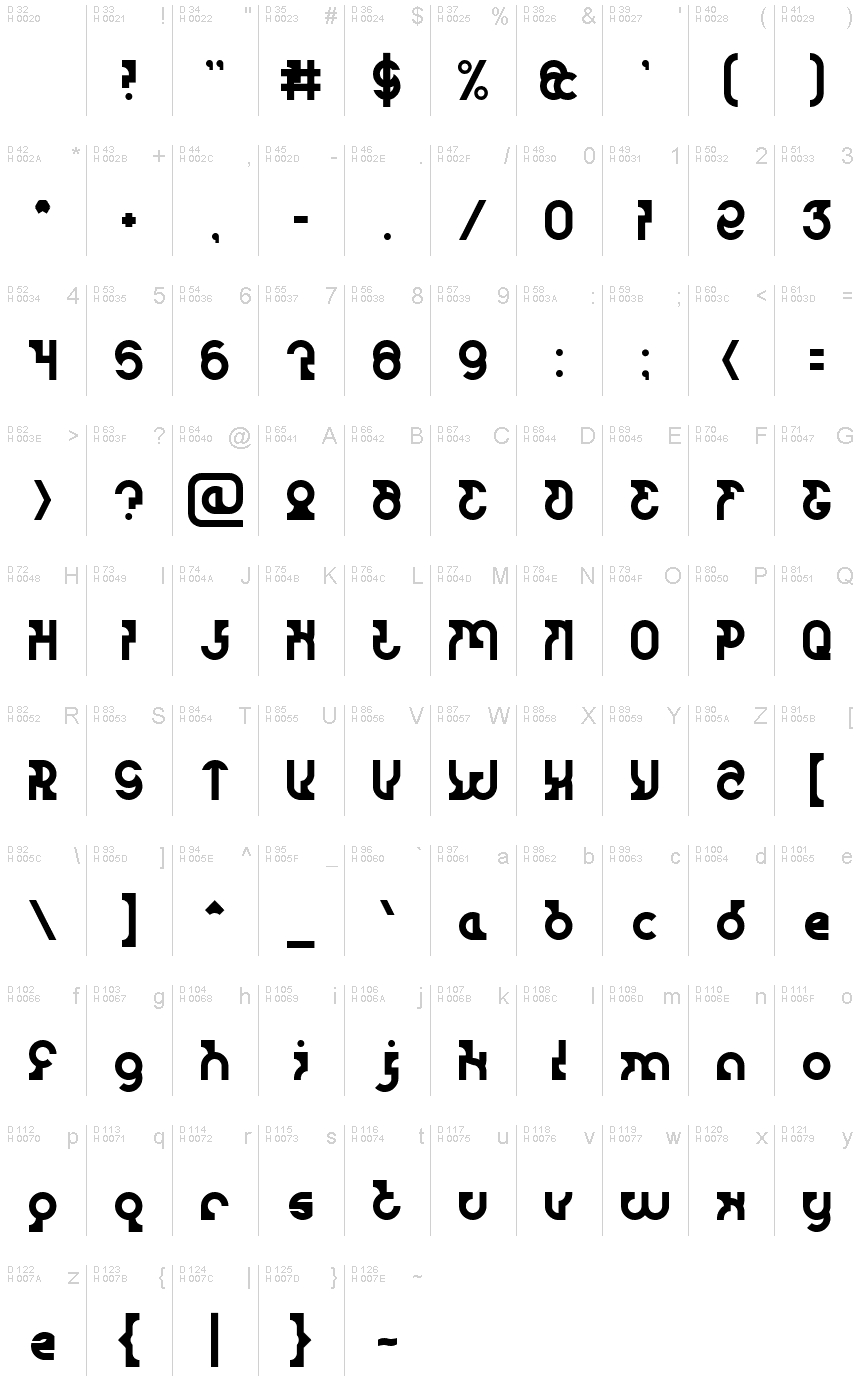
PASSWORD
The PASSWORD font, designed by Weknow Font Foundry, is an exceptional display typeface that effortlessly combines a techno style with a semi-bold weight. With its sleek and futuristic design, PASSWORD is perfect for projects that require a cutting-edge and modern aesthetic. This versatile font is ideal for various applications such as tech websites, gaming logos, app interfaces, and album covers. Its unique blend of boldness and technological elements will captivate audiences and add a touch of sophistication to any design. Upgrade your projects with the PASSWORD font and make an unforgettable statement.